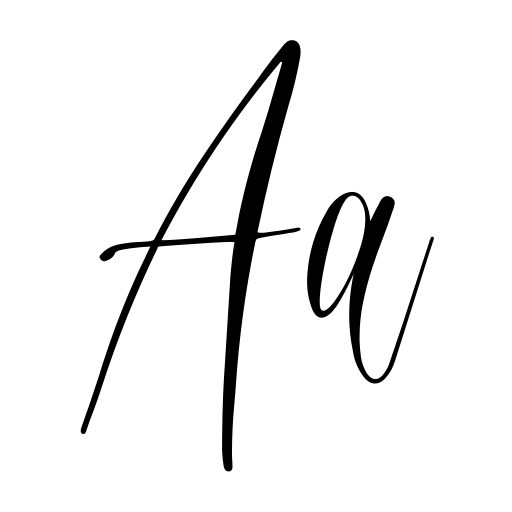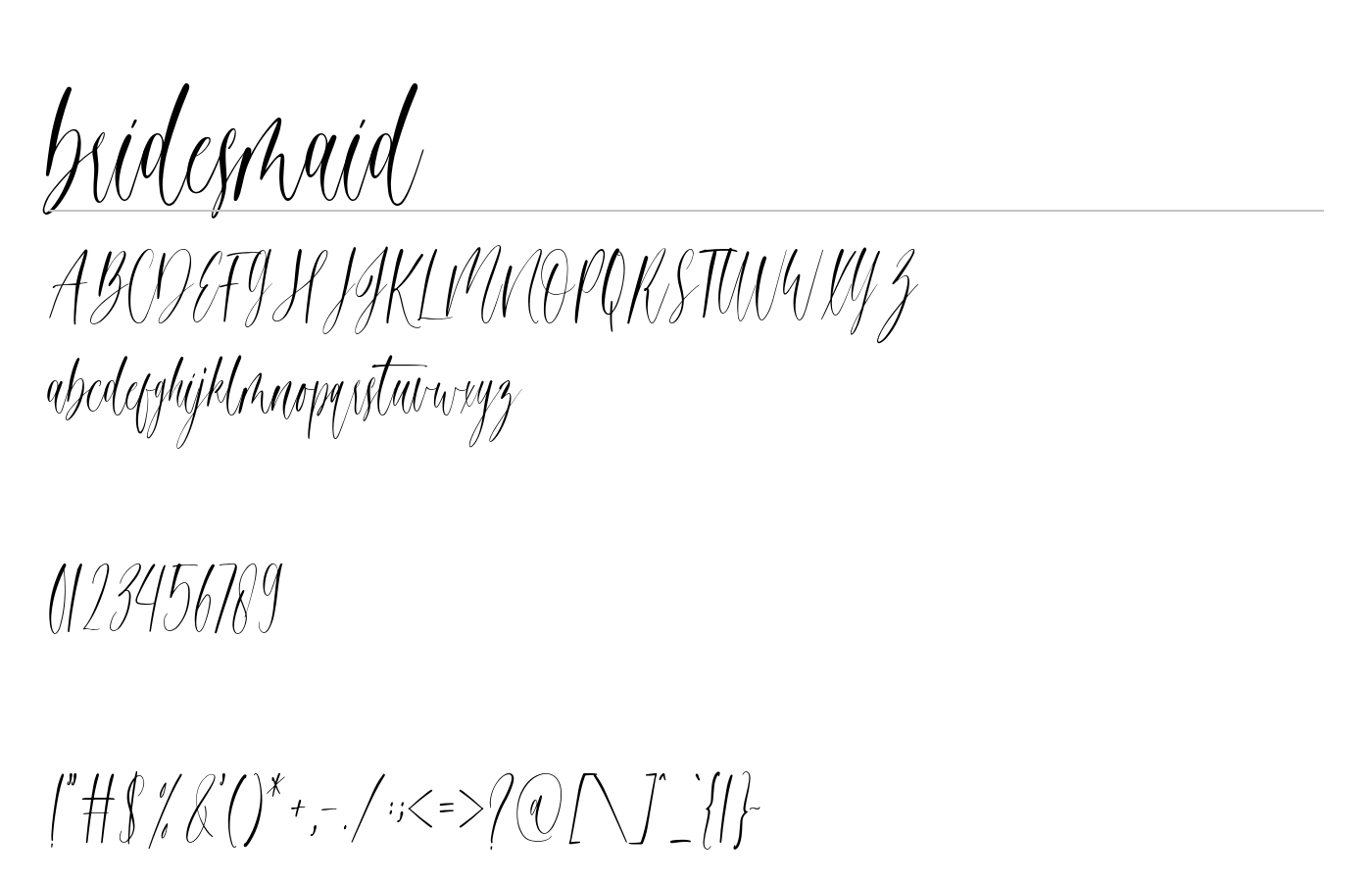
Bridesmaid is an elegant, handwritten script font with tall, slender letterforms and delicate strokes that create a graceful and refined feel. Its flowing, calligraphic style makes it perfect for wedding invitations, luxury branding, and feminine design projects where a personal, sophisticated touch is desired. This font works beautifully in headlines and decorative uses, adding charm and elegance to any design.